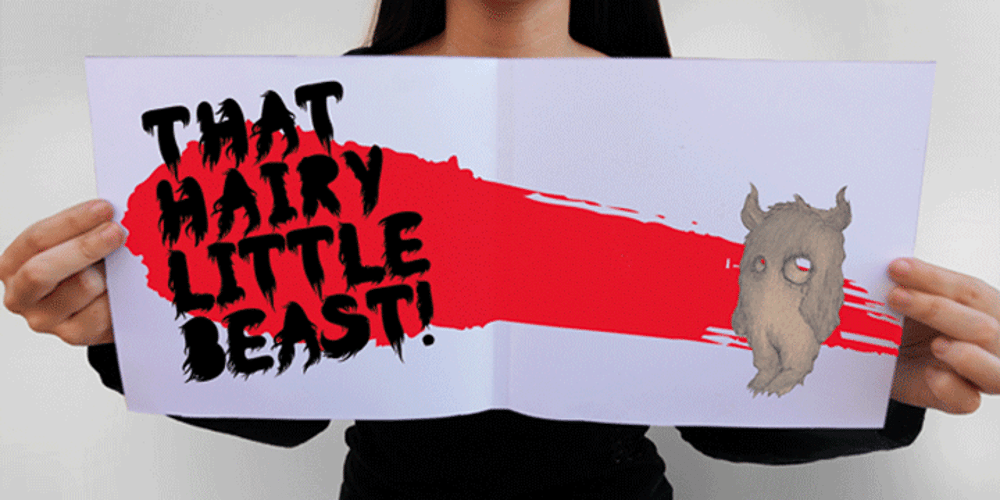
Hairy Beast Font Family was designed by published by Shelsey Birch. Hairy Beast contains 1 styles and family package options. This display typeface is a little bit of scary and a whole lot of fun. Each character represents a little hairy monster of its own. It’s sure to be a welcomed member to your font collection.